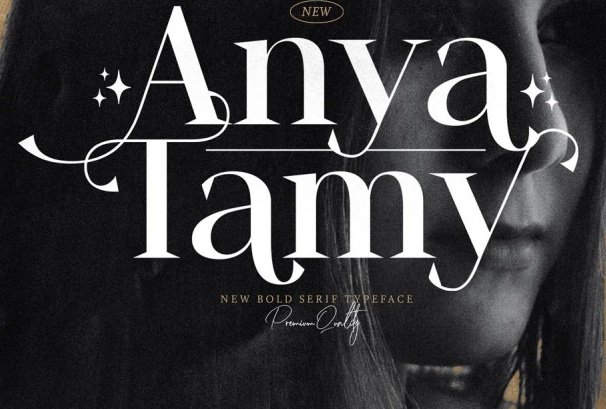
Anya Tamy Font
A modern classic typeface with Europe looks. This font has a lot combination style eg: modern, classic, luxury, fashion, sans serif, decorative… It can easily be matched to an incredibly large set of projects, so add it to your creative ideas and notice how it makes them stand out!